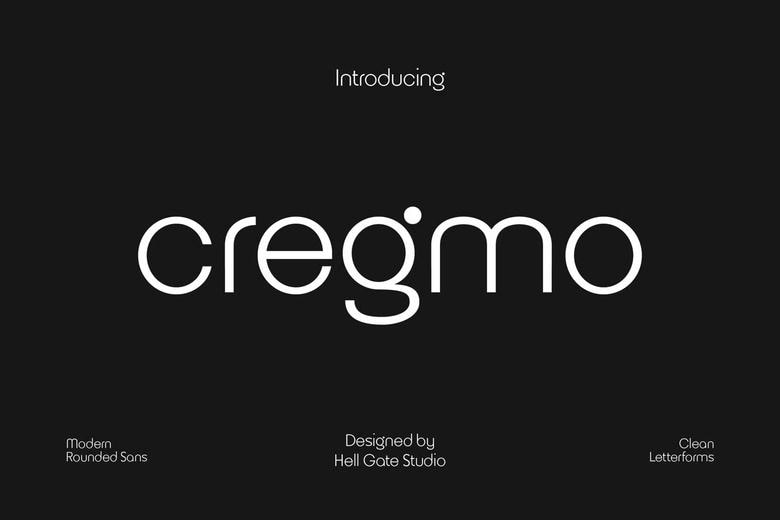
Cregmo Font
Cregmo is a high quality Sans Serif font that is designed by hellgatedesign90 and is available for free download and personal use. The free version provides all uppercase and lowercase letters and a few special characters too.
This font is perfect for branding projects, Logo design, Clothing Branding, product packaging, magazine headers, or simply as a stylish text overlay to any background image.
Cregmo Sans Serif Font